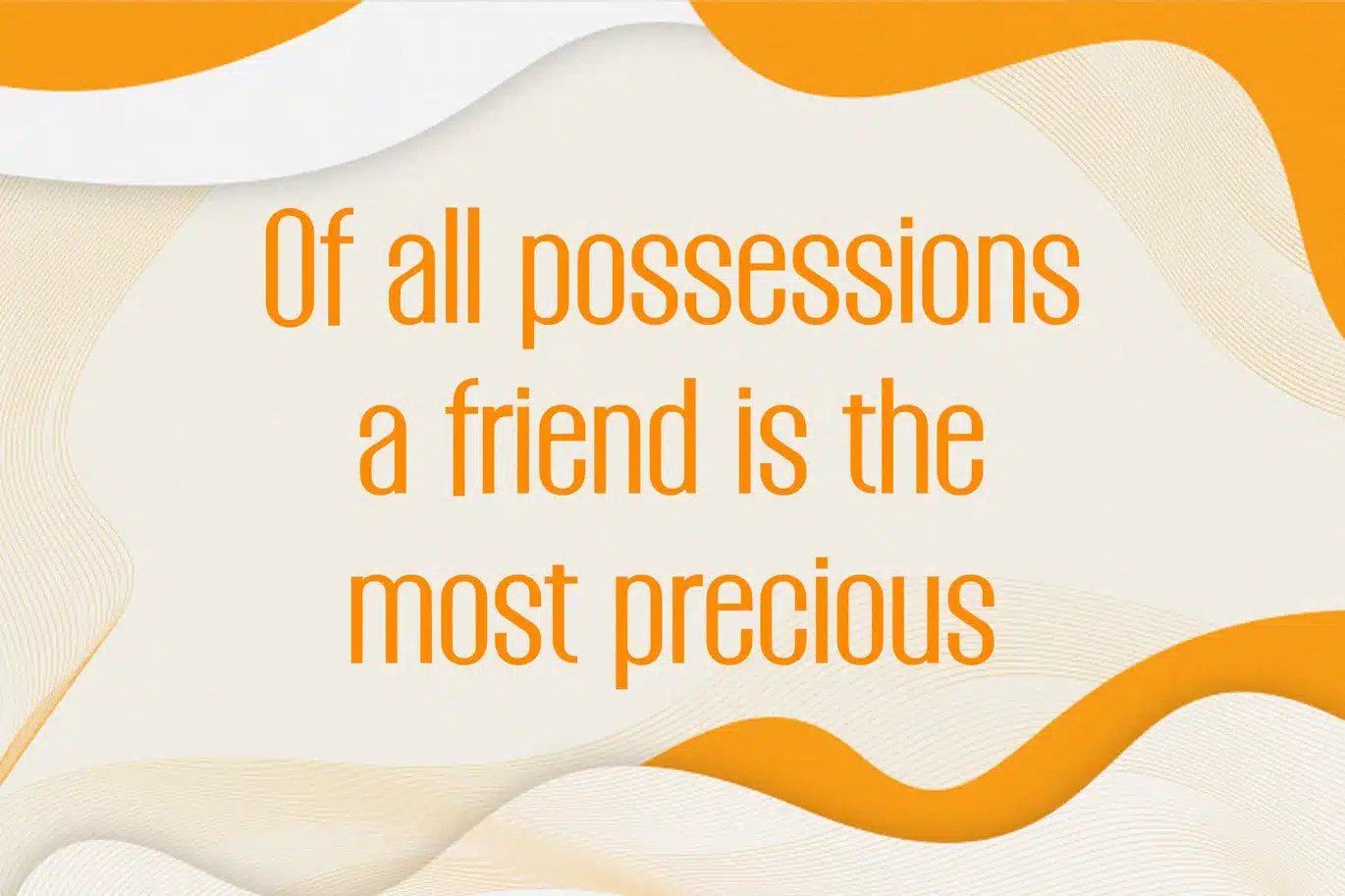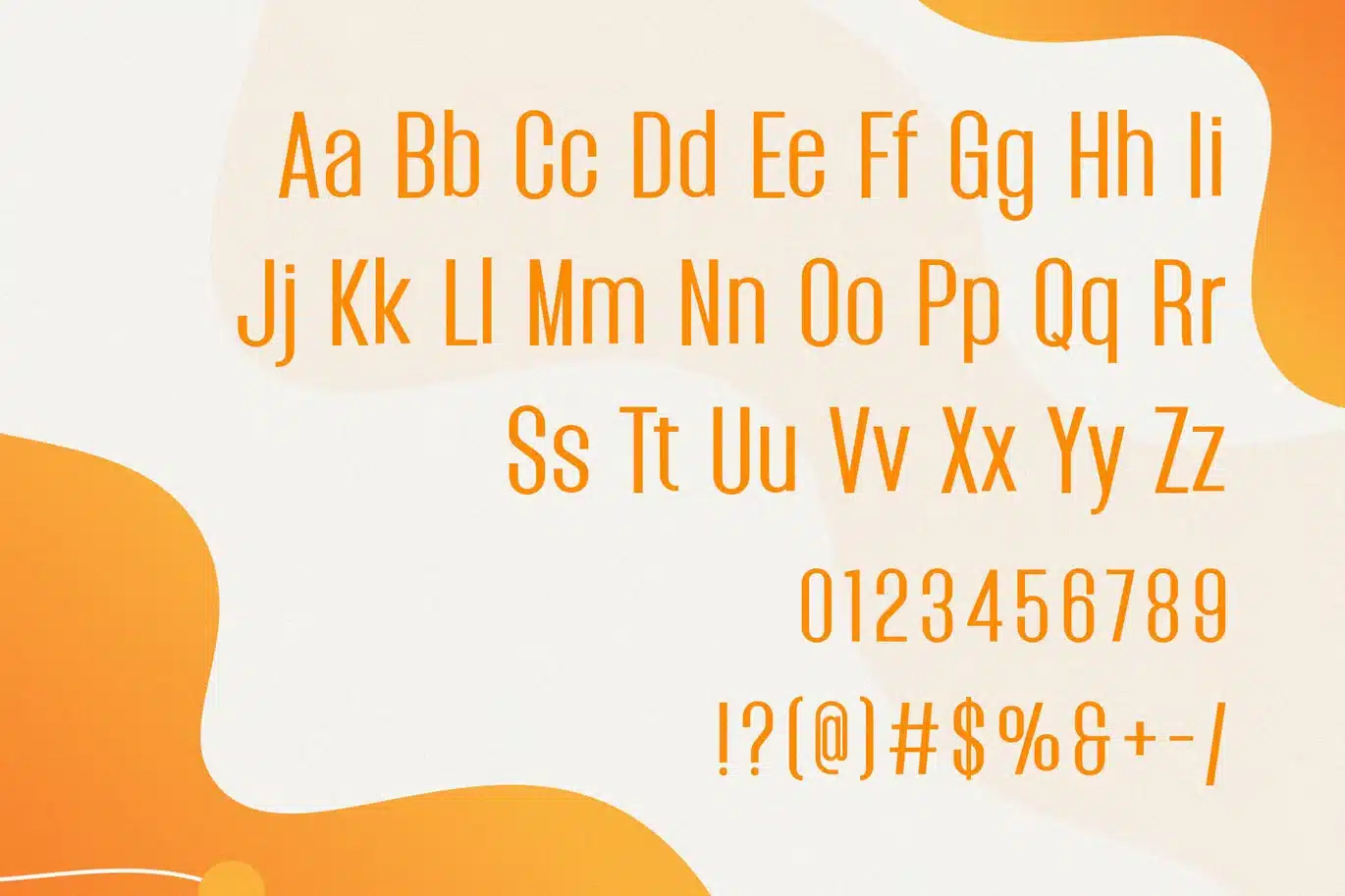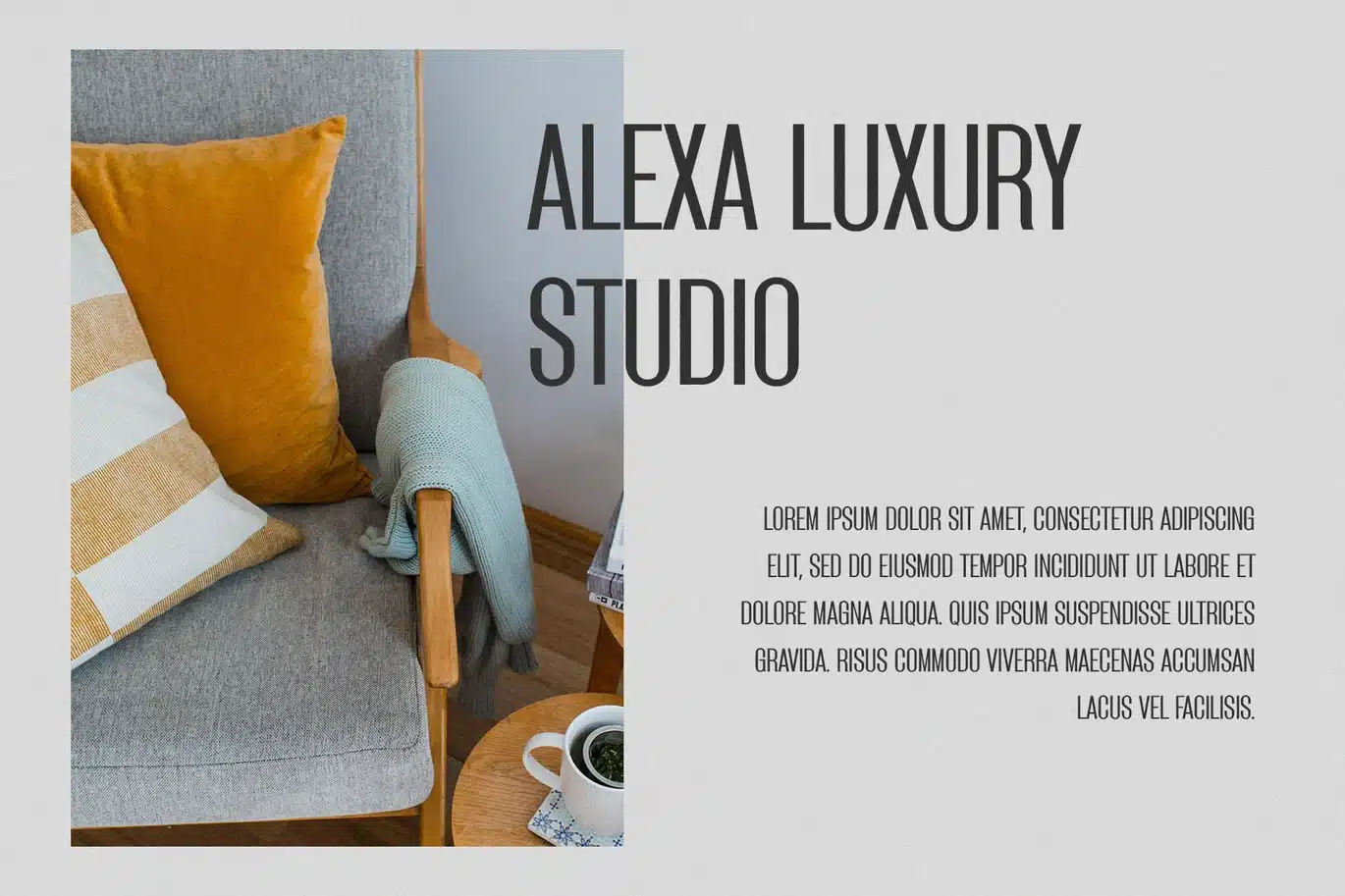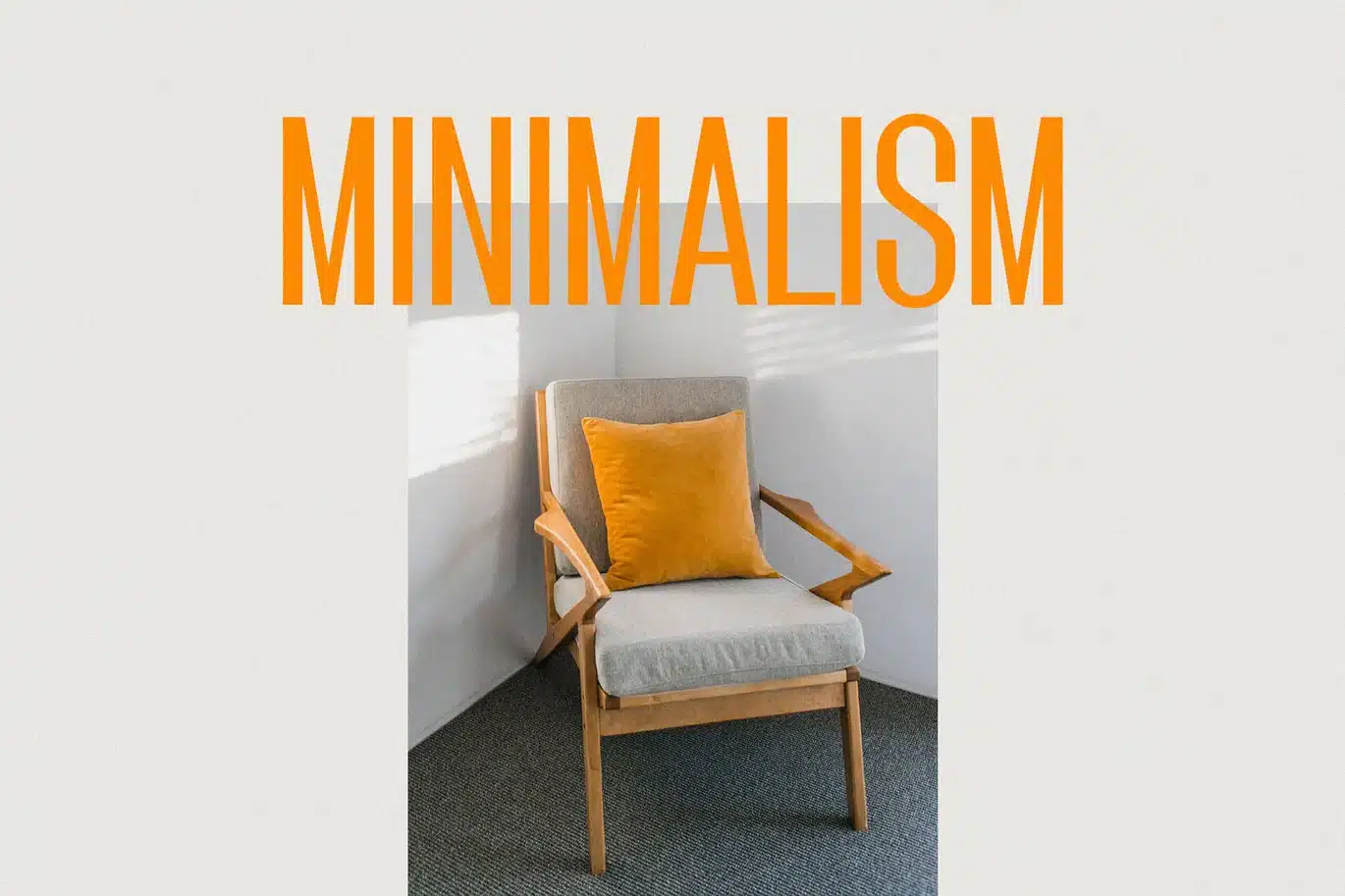
Grandia – Modern Condensed Sans Font
Introducing Grandia Modern Condensed Sans.
Grandia is a modern and simple font, best used as a display for headings, logos, branding, magazines, product packaging and invitations. Grandia come with clean lines and smooth curves give any project an extra touch of class.